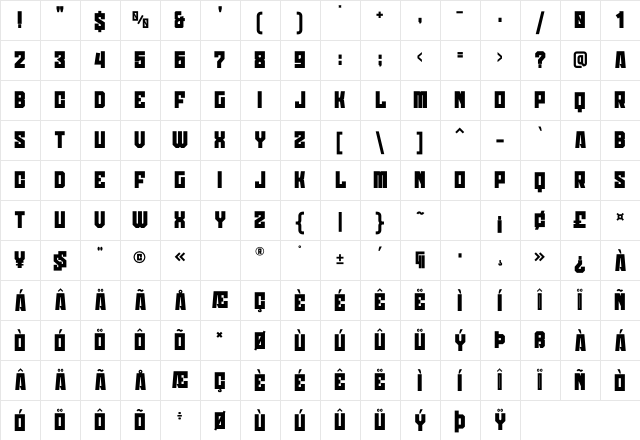
Anderlecht Box Free Font
Anderlecht Box
Style: Box
Foundry: Trequartista Studio
Designer: Muhammad Afif Ersya
Design Context for Anderlecht
Anderlecht is a composed and adaptable typeface that performs quietly and consistently across a wide range of design contexts.